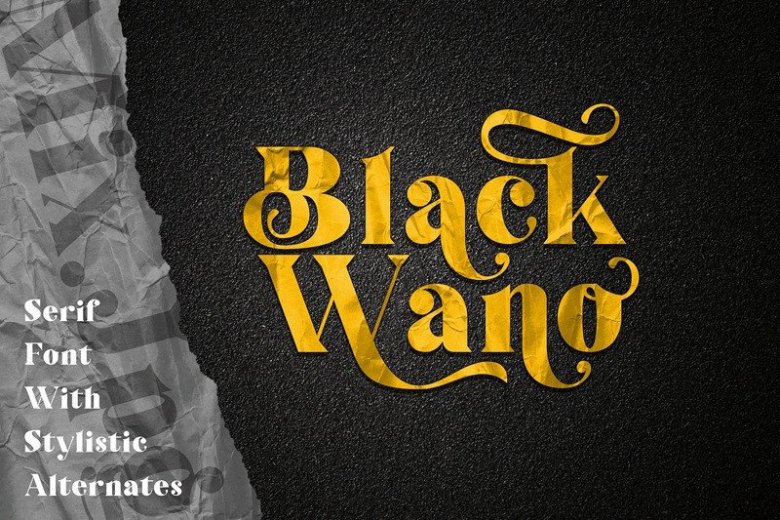
Black Wano Serif Font
Black Wano Serif Font is a modern serif font inspired by luxury fashion brands. It looks amazing at display sizes and is easily readable in text size. Black Wano is perfect for branding projects, Logo designs, Clothing Branding, product packaging, magazine headers, or just as a stylish text overlay for any background image.